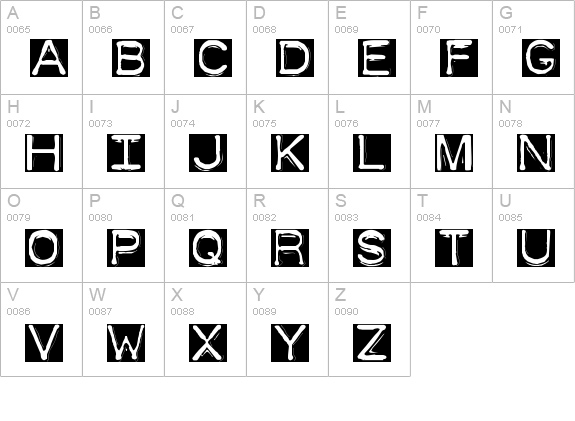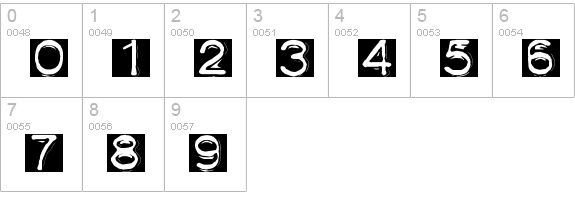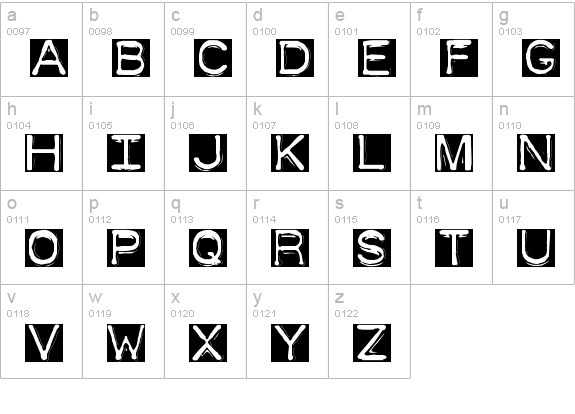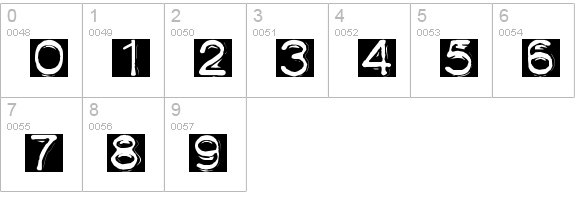
DymoFontInvers Font Details
DymoFontInvers is a striking and bold font that exudes a sense of modernity and sophistication. Its unique design features inverted lettering, creating a visually stunning and eye-catching look. The sharp lines and clean edges of this font make it perfect for making a statement in any design project. With its sleek and contemporary style, DymoFontInvers is sure to capture attention and leave a lasting impression. Whether used for branding, advertising, or any other creative endeavor, this font is versatile and impactful. Best of all, DymoFontInvers is available for free download at FontsMarket.com. Take advantage of this opportunity to add a touch of elegance and flair to your projects with this exceptional font.